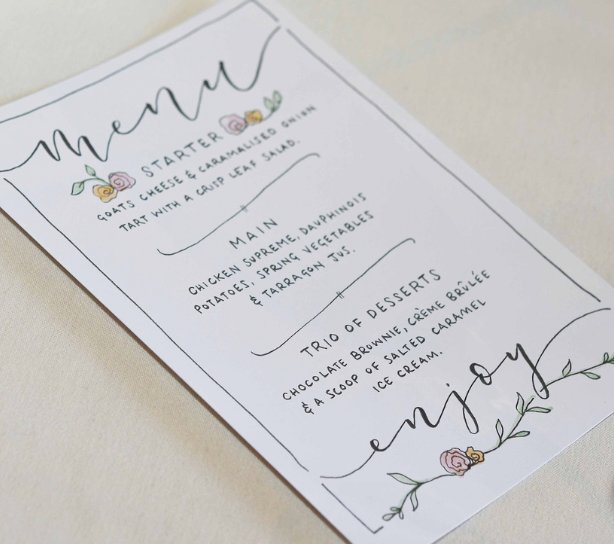
Stunning calligraphy ideas for your dinner, experience or PR brand event
Hosting a VIP event is all about creating a memorable and exclusive experience for your guests. Whether it's a dinner event, product activation, or brand launch, the details matter. One of the most impactful ways to add a touch of elegance and personalization to your event is through calligraphy. Here are some practical ideas on how to incorporate calligraphy into your next VIP event and make it truly unforgettable.
Personalised Invitations
First impressions count. Sending out beautifully calligraphed invitations sets the tone for your event from the very beginning. A personalised, hand-written invitation not only looks stunning but also makes your guests feel special and valued.
Elegant Place Cards
Place cards are a small detail that can make a big impact. Hand-written calligraphy place cards add a sophisticated touch to your dining tables and help your guests find their seats effortlessly. They also make for a lovely keepsake to remember the event by.
Customised Menus
Enhance your dining experience with custom calligraphy menus. Whether it's a formal dinner or a cocktail party, a beautifully designed menu with elegant calligraphy will impress your guests and add a cohesive look to your table setting.
Event Signage
Guide your guests seamlessly through the event with stylish calligraphy signage. From welcome signs to directional signs, incorporating calligraphy can help create a cohesive and luxurious atmosphere. This not only helps with navigation but also reinforces your event's branding.
Interactive Calligraphy Stations
Engage your guests with a live calligraphy station. Hire a calligrapher to create personalised items on the spot, such as name tags, bookmarks, or small quotes. This interactive element is sure to delight your guests and provide a unique and memorable experience.
Branded Calligraphy
For product activations or brand launches, incorporate your brand’s logo or slogan in elegant calligraphy. This can be used on promotional materials, gift bags, or even as part of a live demonstration. It’s a great way to seamlessly blend branding with artistry, creating a sophisticated and cohesive look.
By incorporating these calligraphy elements into your event, you can create an atmosphere of elegance and exclusivity that your guests will remember.